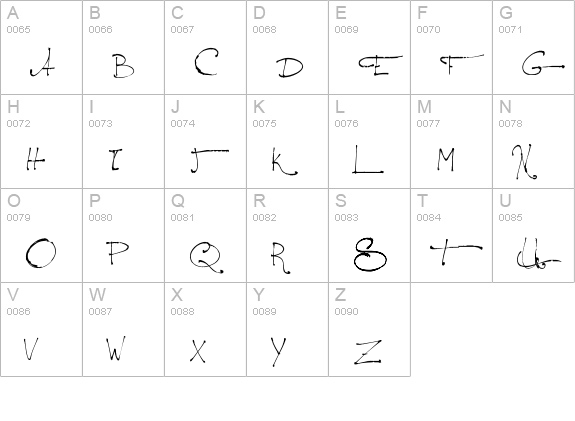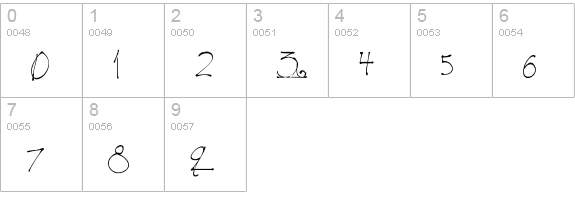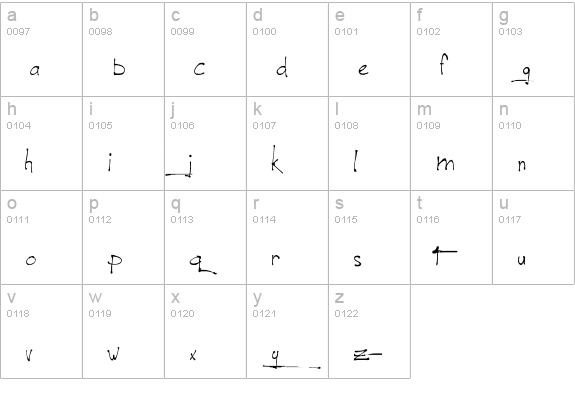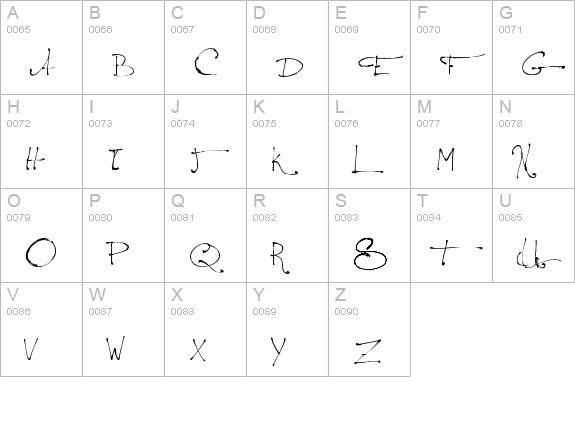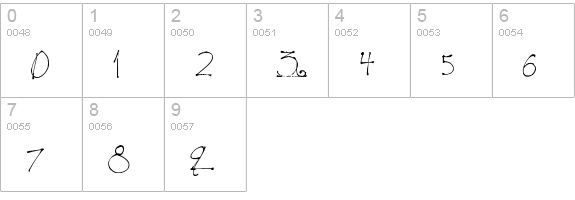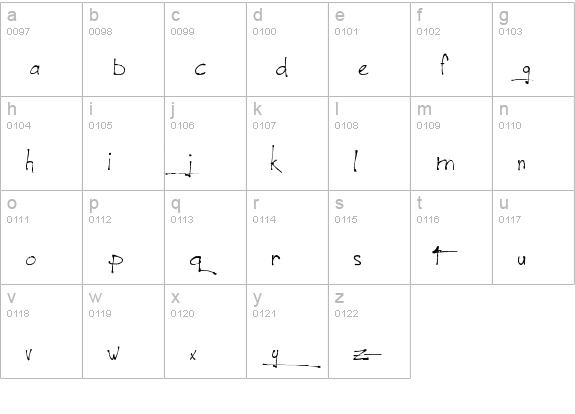
Jellyka - le Grand Saut Textual Font Details
Jellyka - le Grand Saut Textual font is a beautiful and elegant script font that exudes charm and sophistication. Its flowing lines and intricate details make it perfect for adding a touch of class to any project. This font is versatile and can be used for a variety of purposes, from invitations to branding to packaging. The best part? Jellyka - le Grand Saut Textual font is completely free to download! You can get your hands on this stunning font at FontsMarket.com, where you can easily access and use it for all your creative endeavors. Don't miss out on this fabulous opportunity to elevate your designs with this gorgeous typeface. Download it now and let your creativity soar!